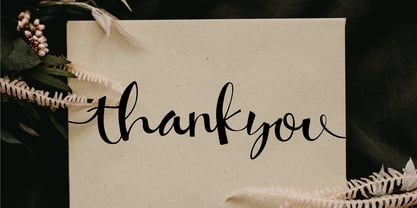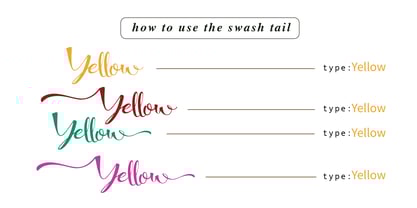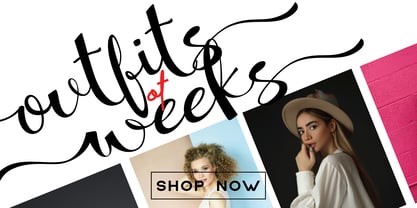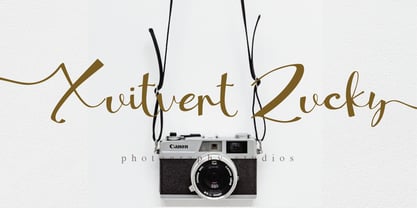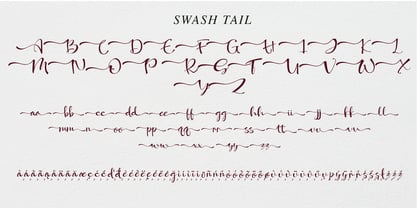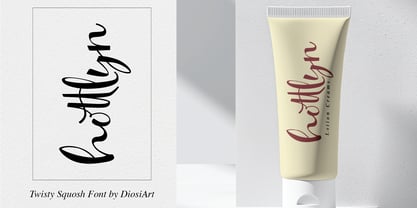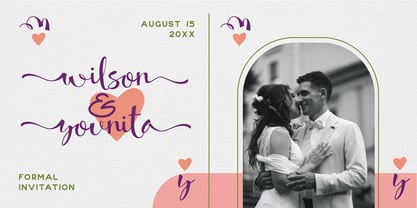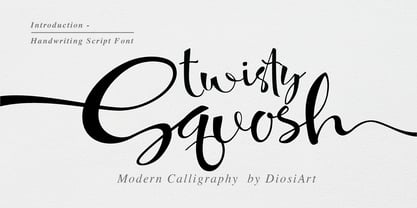
Twisty Squosh
by DLetters Studio
The Twisty Squosh Font Family was designed by Diosi Julianto and published by DLetters Studio. Twisty Squosh contains 1 styles. More about this family
Twisty Squosh is professional modern handwriting font with the characteristic of twisty style and has swash and tails glyphs . Designed for high-end branding and project needs. This font the essence of modern minimalism while maintaining a sense of luxury and refinement.
Whether you are crafting a corporate identity, designing sleek business cards, or editorial content, this font ensures your work exudes professionalism and style.
Ideal for branding, business logo, headline, websites, and more. Twisty Squosh refine your design effortlessly and elevates the project. Helps you communicate a refined, modern aesthetic that leaves a lasting impression.
Designers: Diosi Julianto
Foundry: DLetters Studio